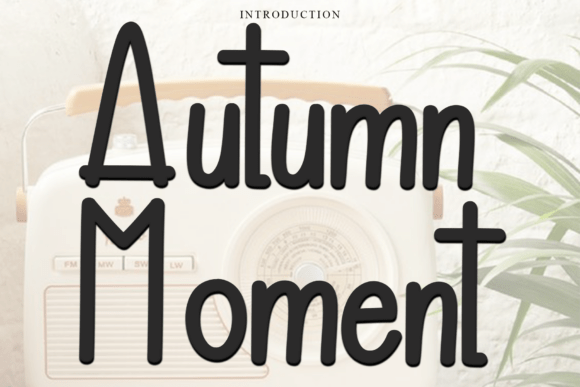
Discover the Charm of Butterfly Font: A Perfect Blend of Retro and Modern
As designers, we’ve all been there – stuck on a project, searching for that perfect font to capture the essence of our brand or client’s vision. I recall working on a cozy café menu project, wanting a font that exuded warmth and approachability. That’s when I stumbled upon the delightful Butterfly Font, which I’ll refer to as Autumn Moment in this article. This charming display font has become a staple in my design toolkit, and I’m excited to share its beauty with you.
A Personal Review: What I Love About Autumn Moment
Here’s what makes Autumn Moment a standout font:
• ✨ Soft, rounded terminals that add a touch of warmth and friendliness
• ✅ Balanced weight that’s perfect for display text and body copy
• 🔥 Unique blend of retro radio aesthetics and modern cozy branding
• 👍 Approachable personality that’s ideal for independent lifestyle blogs, boutique cafés, and home-baked packaging labels
While Autumn Moment is an excellent font, there are a few minor quirks to be aware of:
• 🤔 Limited character set: While it covers the basics, it might not have every special character or glyph you need
• ⚠️ Not ideal for body text: Due to its display nature, Autumn Moment shines best in headlines and titles
While the actual designer of Autumn Moment remains unknown, it’s clear that they drew inspiration from the nostalgia of retro radio aesthetics and the coziness of modern branding. Imagine a warm summer evening, surrounded by friends and family, with the sound of a vintage radio playing in the background. That’s the feeling Autumn Moment aims to evoke.
What is the best use case for Autumn Moment? Autumn Moment shines best in display text, such as headlines, titles, and short paragraphs. It’s perfect for independent lifestyle blogs, boutique cafés, and home-baked packaging labels.
Can I use Autumn Moment for body text? While possible, Autumn Moment is not ideal for body text due to its display nature. It’s best used for short paragraphs or titles.
Is Autumn Moment suitable for digital use? Absolutely! Autumn Moment is designed to be versatile and works well in both digital and print applications.